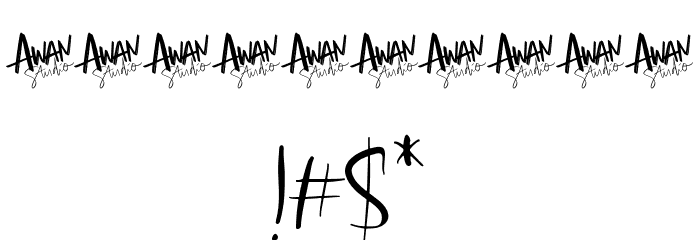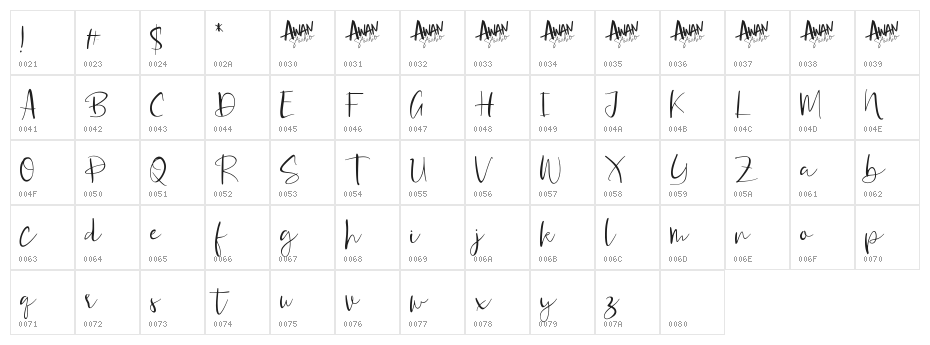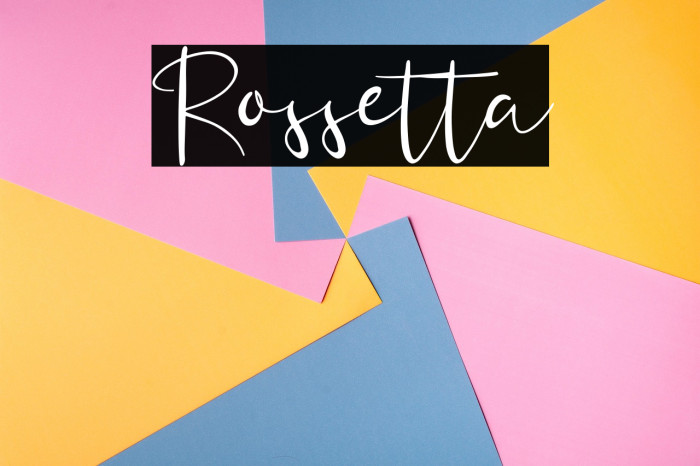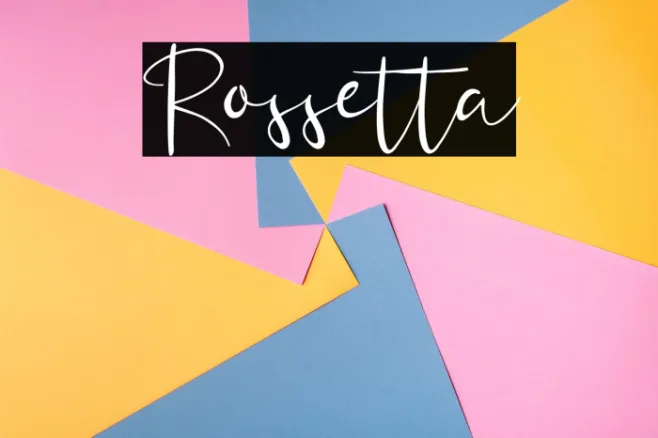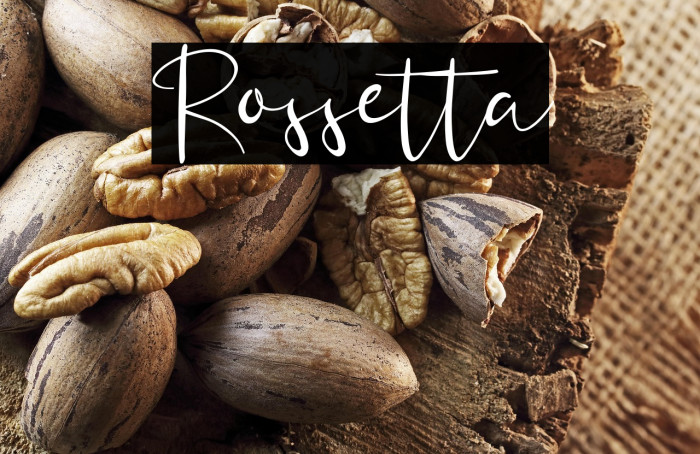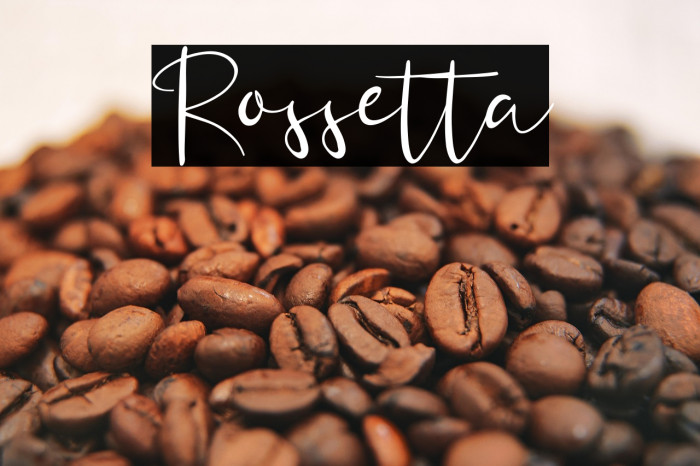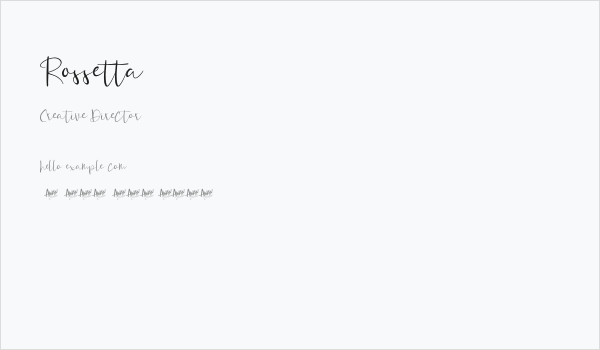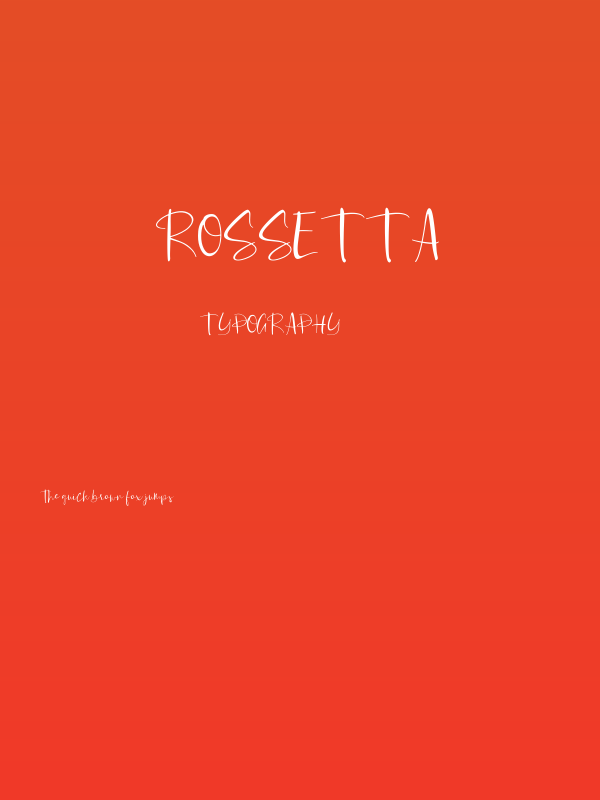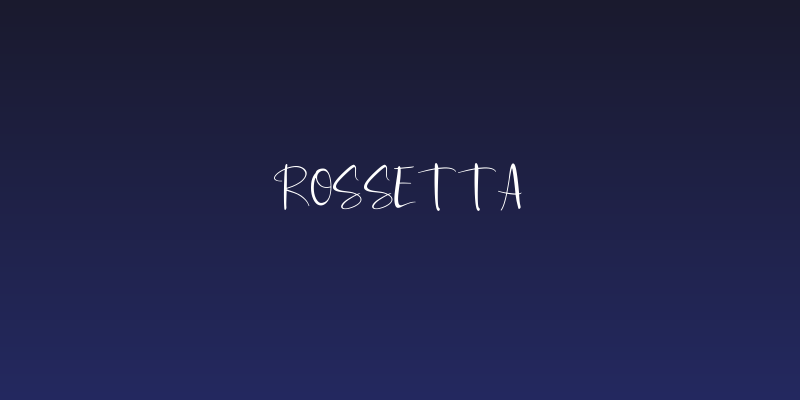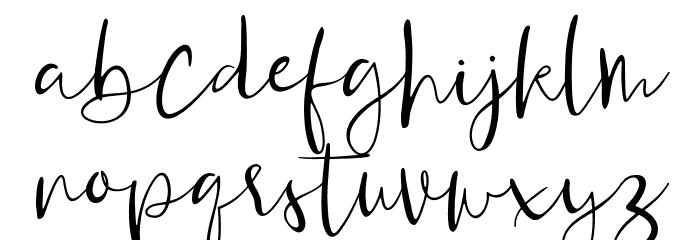
Rossetta Font
Rossetta Description
This font exudes a playful and artistic flair, characterized by its flowing, handwritten style. The uppercase letters are tall and slightly narrow, with a whimsical touch that adds personality to each character. The lowercase letters maintain a consistent flow, with elegant loops and curves that create a sense of movement and fluidity. The numbers and special characters complement the alphabet with similar stylistic elements, ensuring a cohesive look. This font is perfect for projects that require a personal, creative touch, such as invitations, greeting cards, or branding for artistic ventures.
| Proposed Projects | Ideal for invitations, greeting cards, artistic branding, and creative projects. |